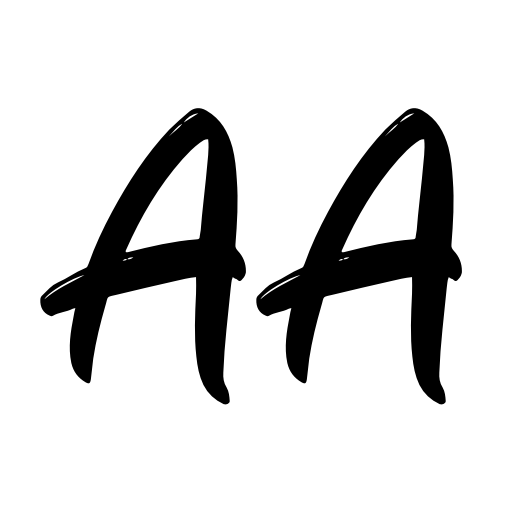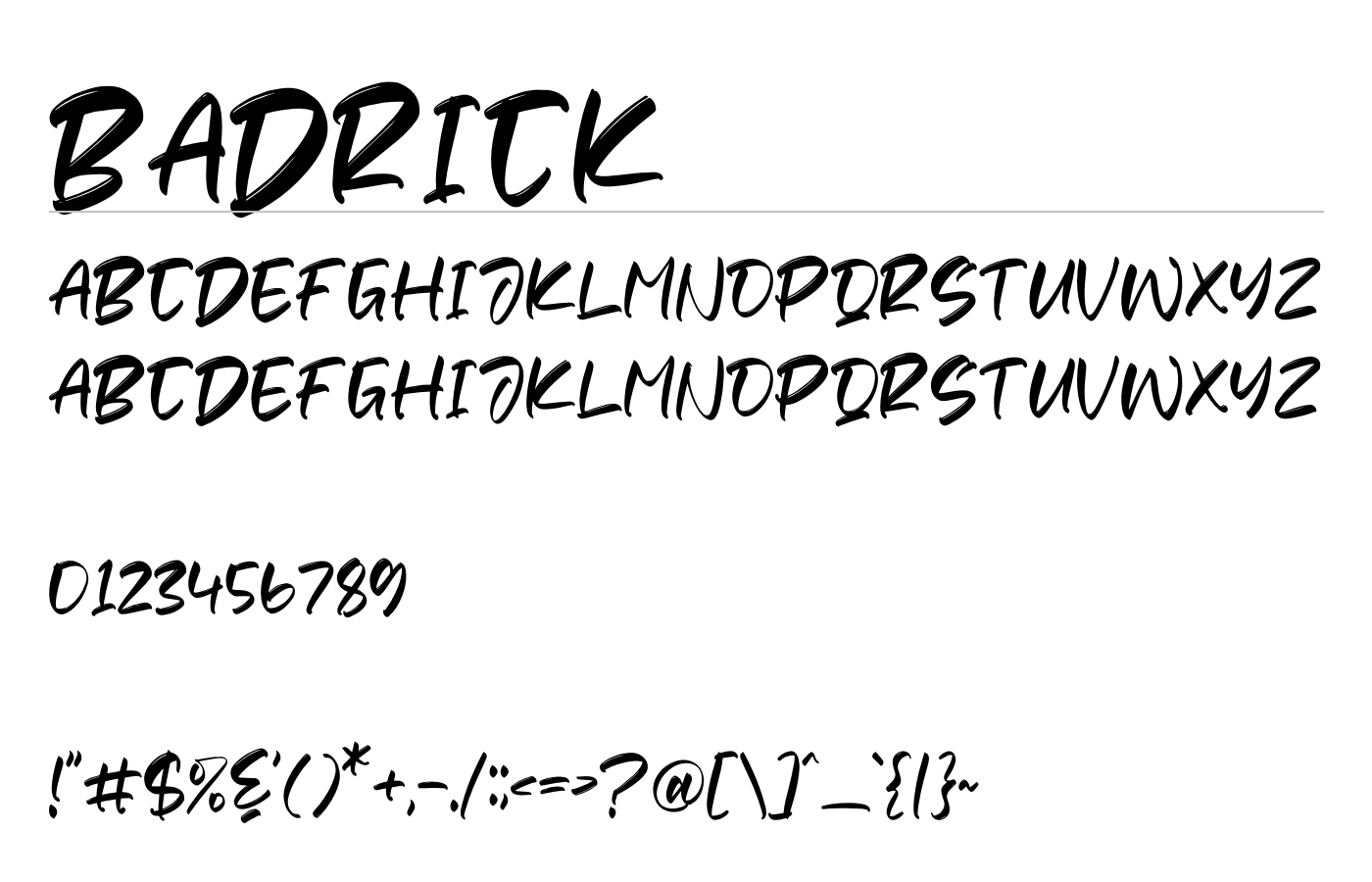
BADRICK is a bold, casual script font with a strong handwritten style that feels lively and expressive. Its slightly irregular strokes and natural brush texture give it an energetic and personal vibe, making it perfect for creative branding, informal logos, and eye-catching headlines. This font works well where a friendly, dynamic, and approachable look is desired.
BADRICK Font
About BADRICK Font